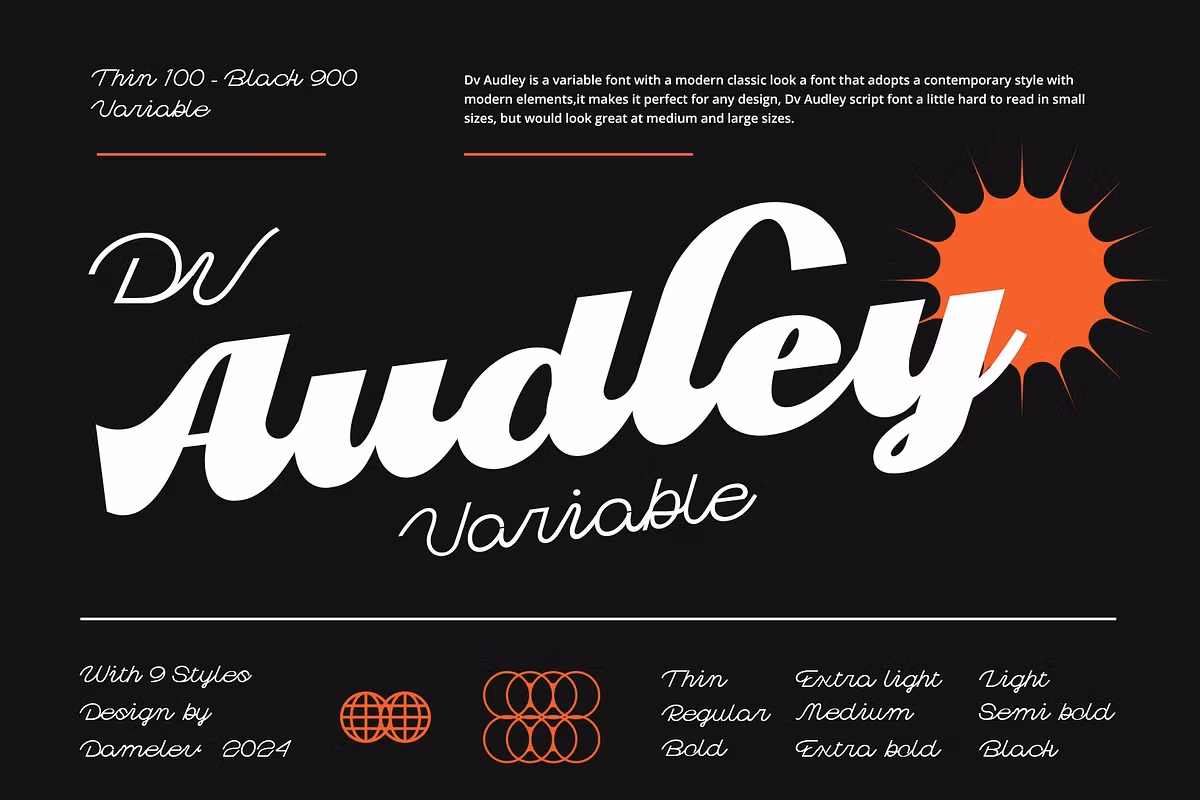
Dv Audley Free Download
Dv Audley Font Free Download
The Dv Audley Font Free Download is a sleek and modern typeface designed to add a professional and contemporary touch to your designs. Featuring clean, bold letterforms with subtle elegance, this font is perfect for creating striking logos, branding, headlines, posters, and digital content. Whether you're designing for a corporate brand, creative project, or professional presentation, Dv Audley offers a sophisticated and stylish look that makes a statement.
Dv Audley Font Free Download is ideal for designers looking for a versatile and high-impact font that combines readability with a contemporary feel. Perfect for modern branding, advertising, and editorial design, this font will elevate your creative work. Download it today and bring a fresh, professional look to your designs with Dv Audley!